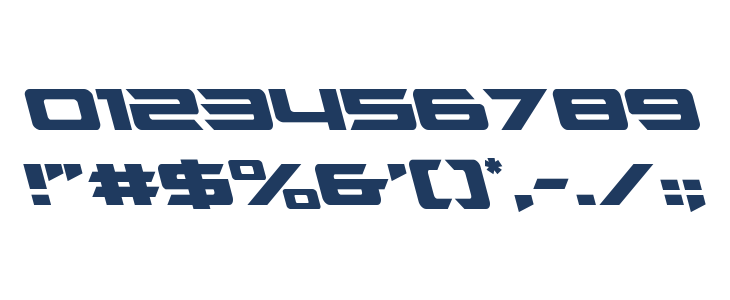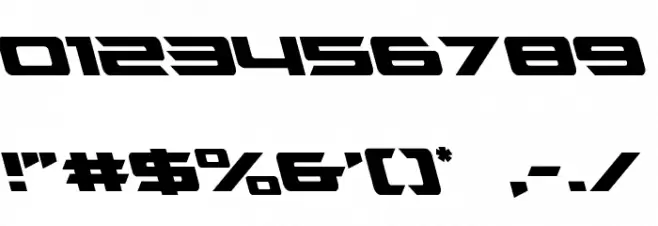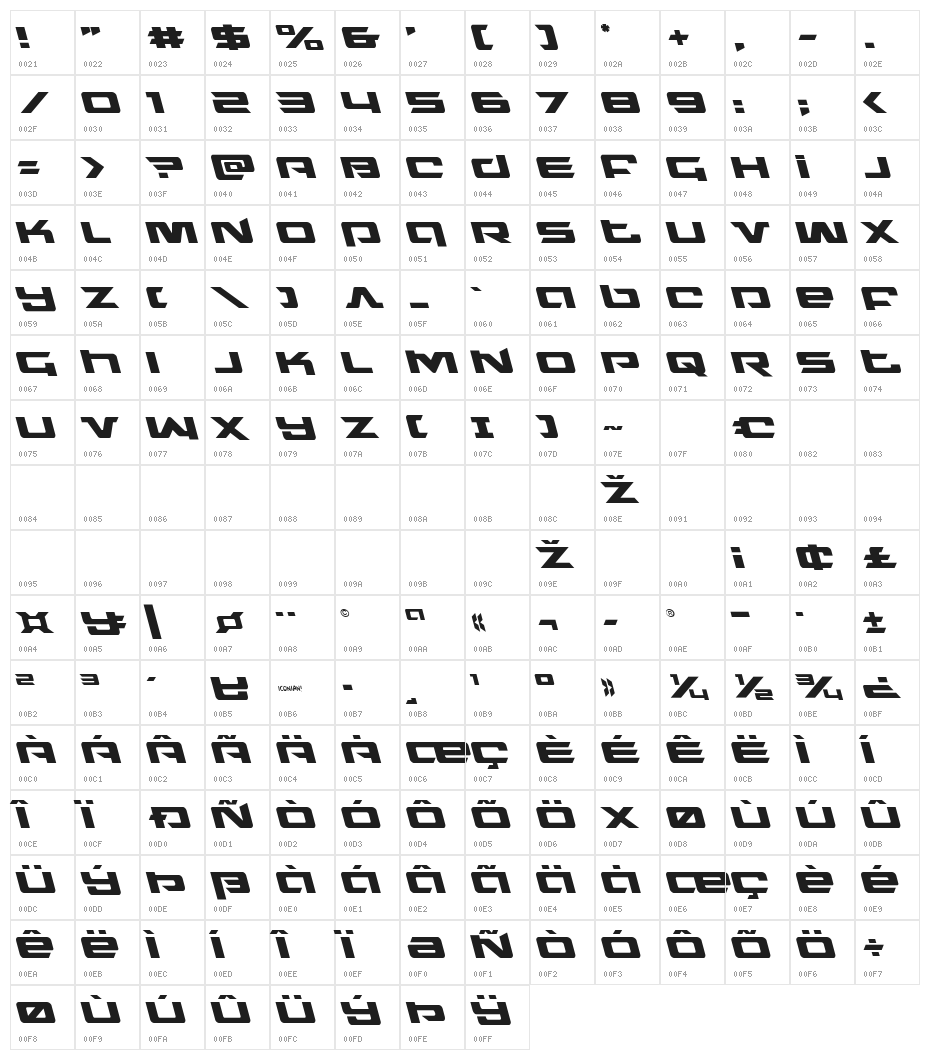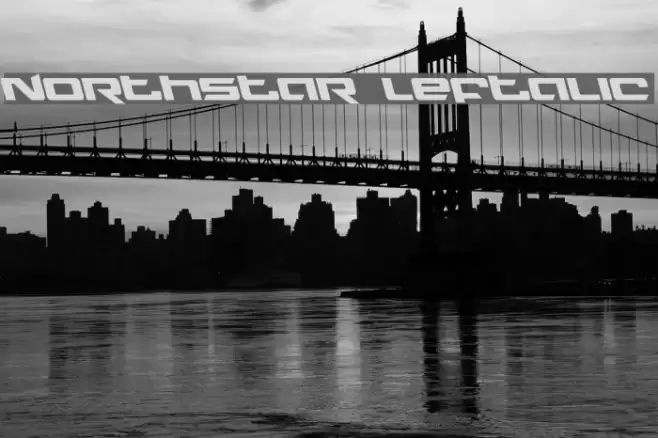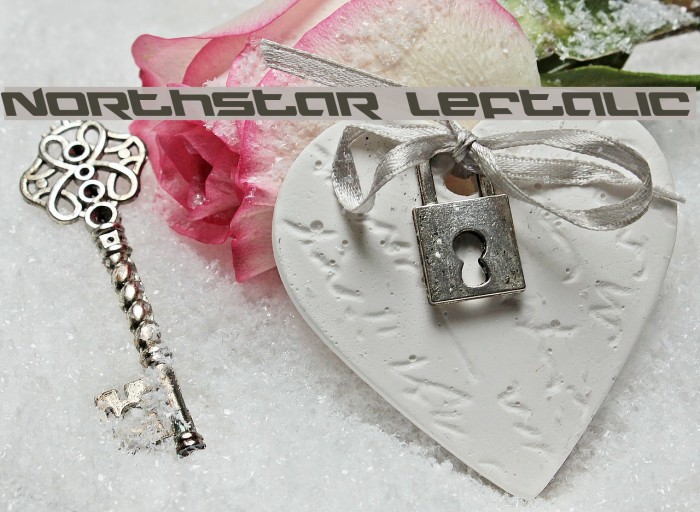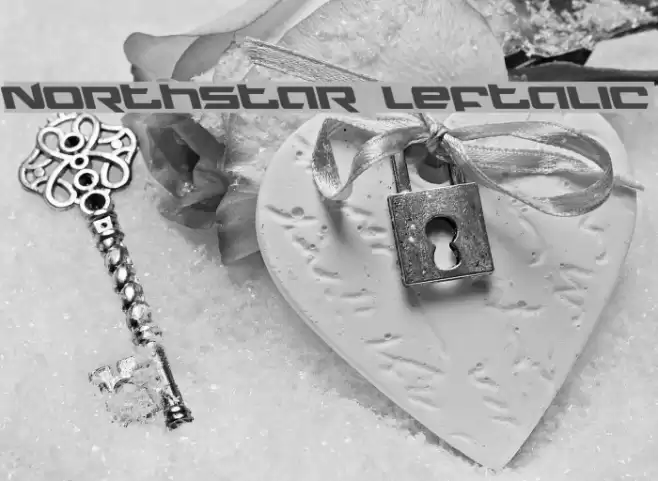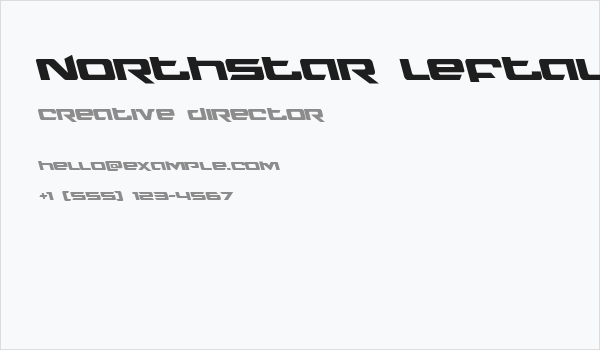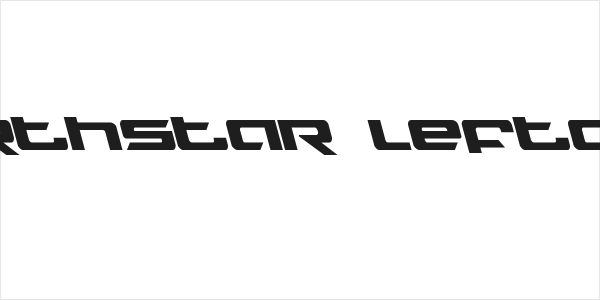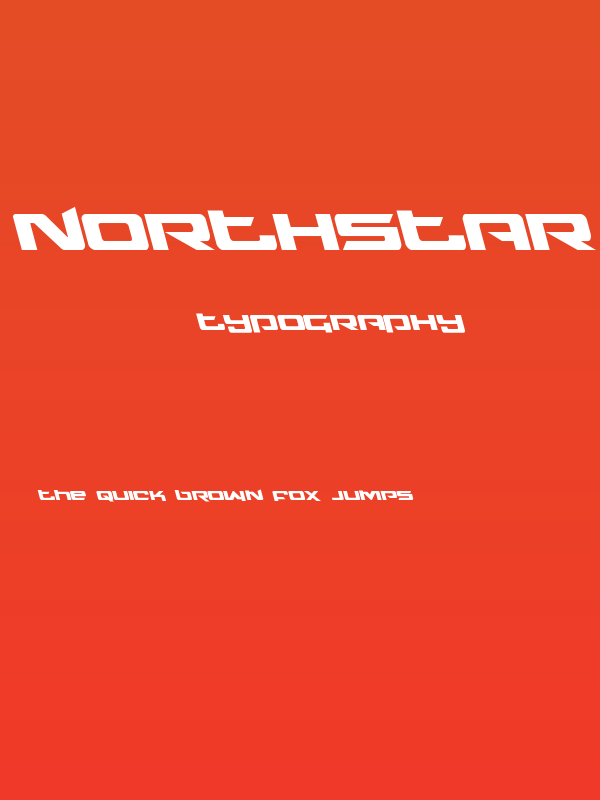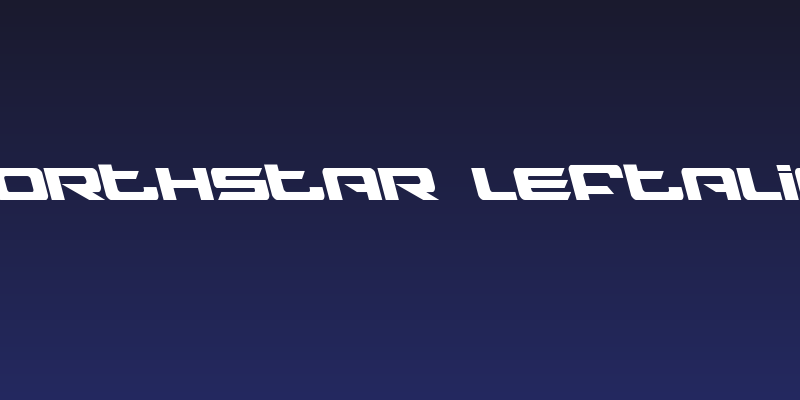
Northstar Leftalic Font
Northstar Leftalic Description
This font features a futuristic and angular design, characterized by sharp edges and a dynamic slant that gives it a sense of motion. The uppercase and lowercase letters maintain a consistent style, with bold, geometric shapes that are both eye-catching and modern. The numerals and special characters follow the same design principles, ensuring a cohesive look across all text elements. The font's unique style makes it ideal for projects that require a bold and contemporary aesthetic.